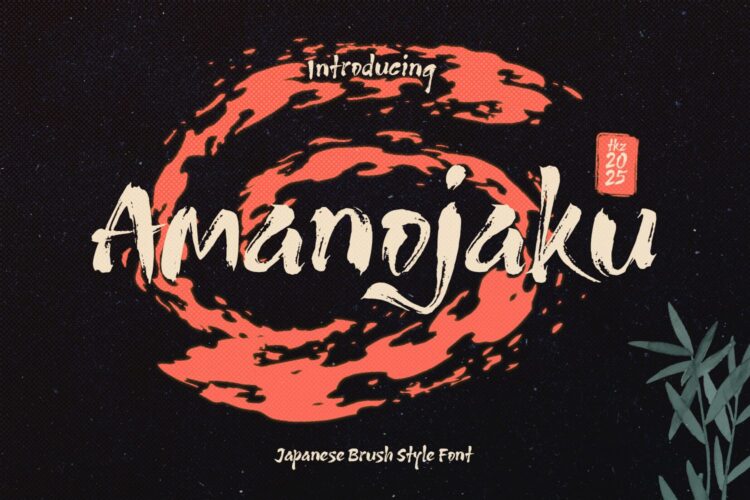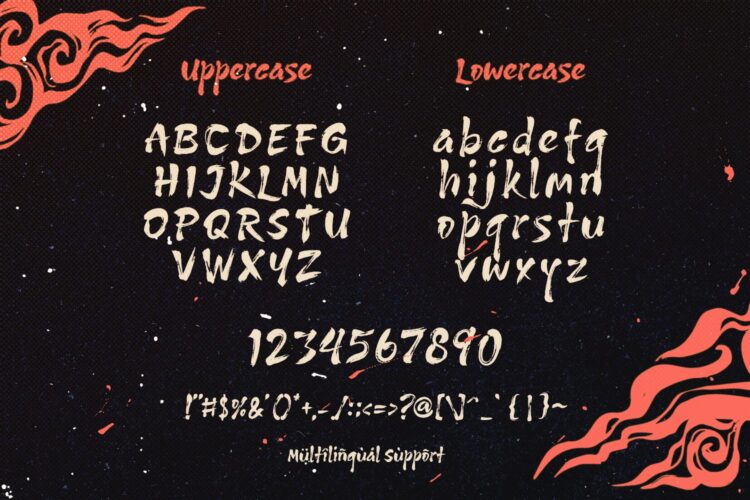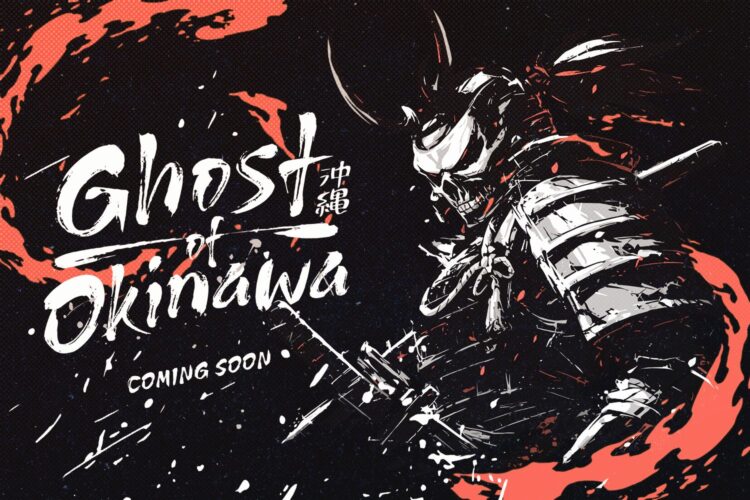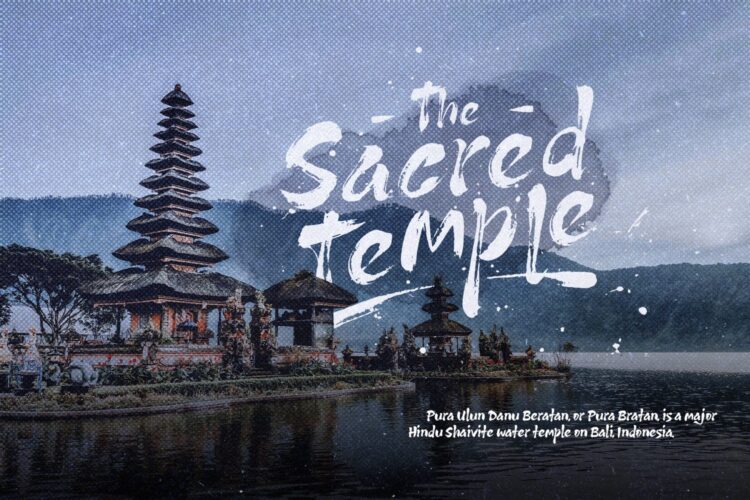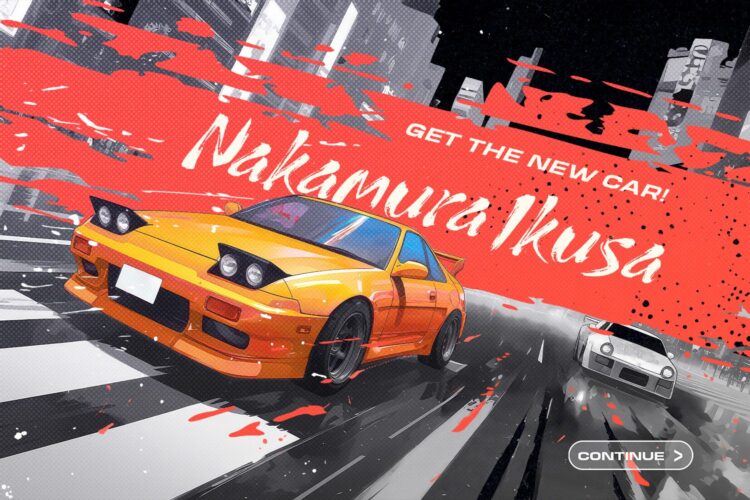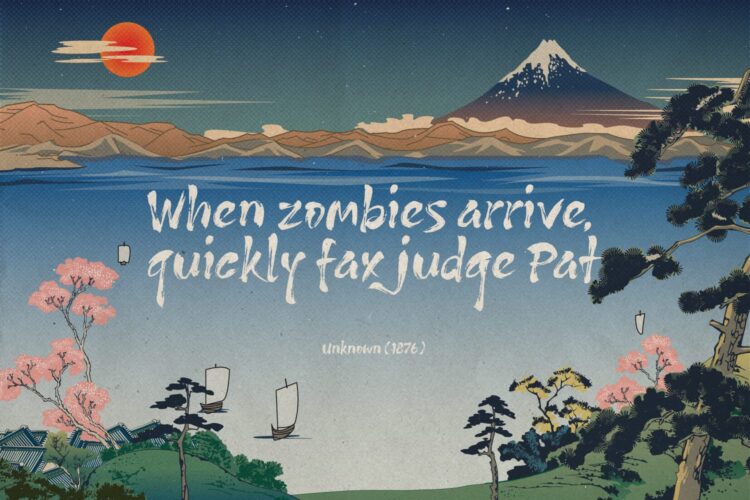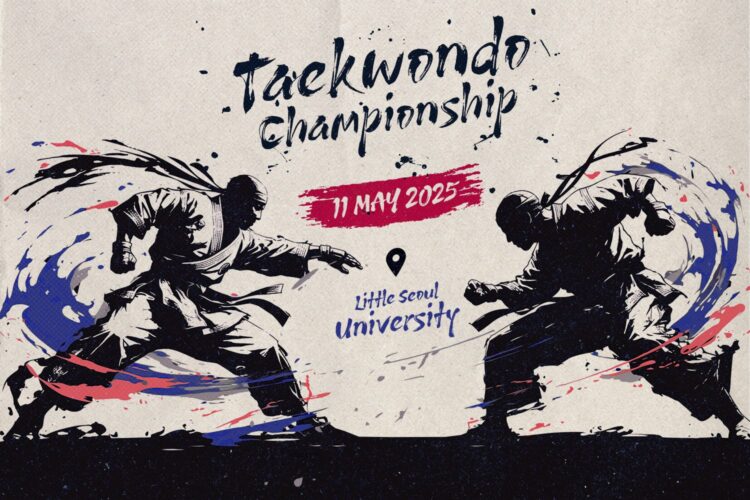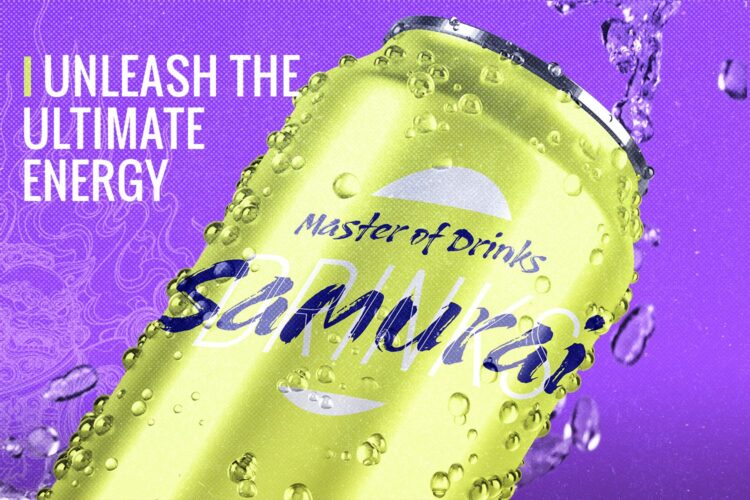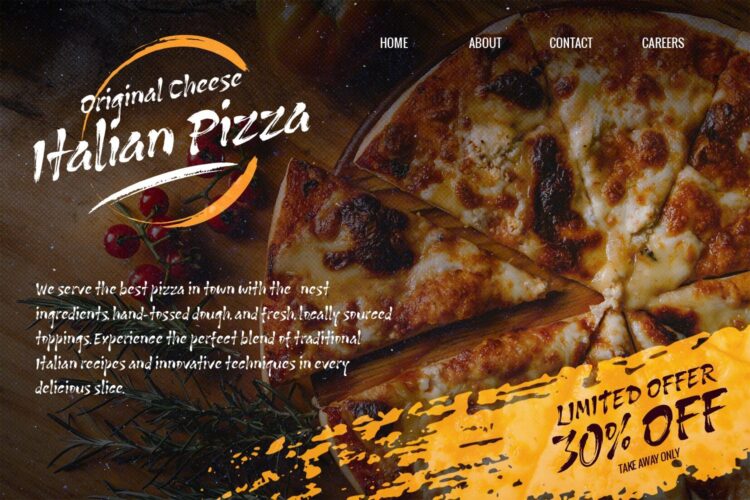
Traditional Brush Font
Amanojaku
Amanojaku is a traditional hand-drawn brush font inspired by a rebellious Japanese folklore creature. It blends traditional brush strokes with a modern twist. Perfect for a variety of projects like logos, movie titles, game titles, posters, book covers, and branding materials, Amanojaku helps your designs stand out with its bold and edgy style.